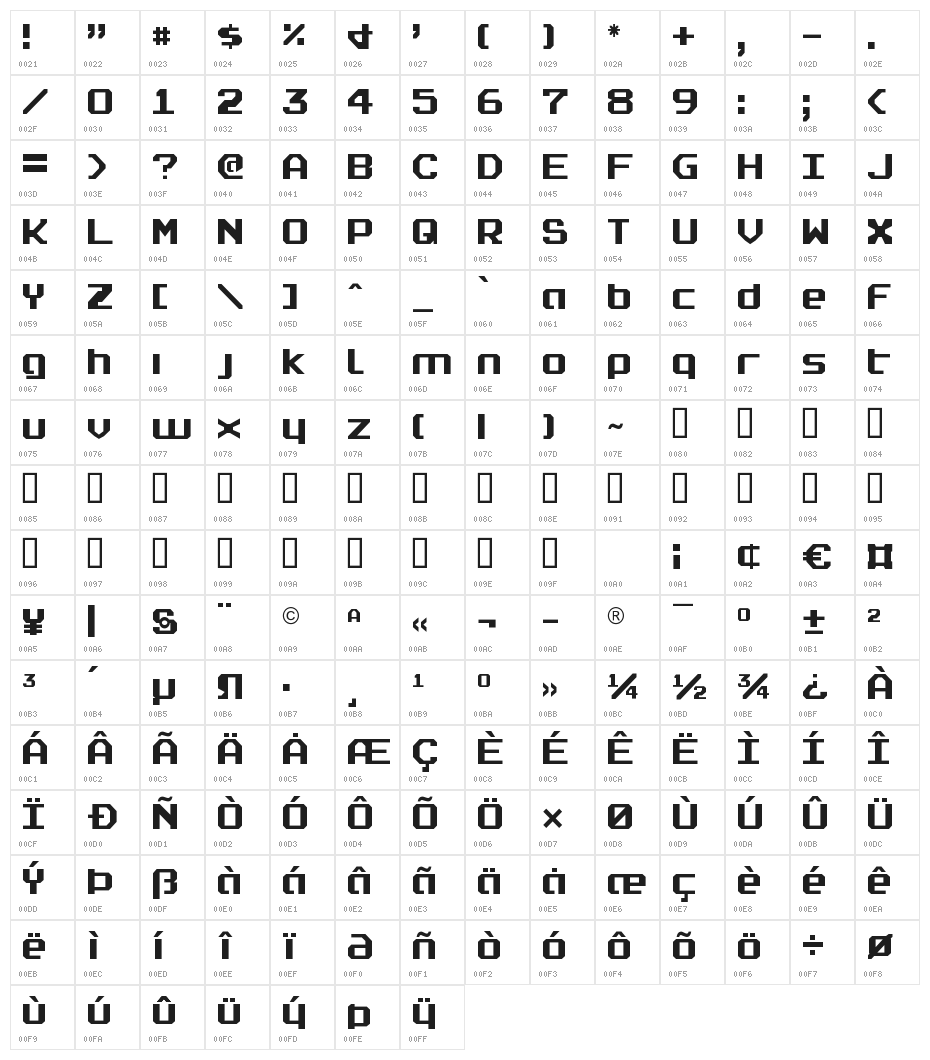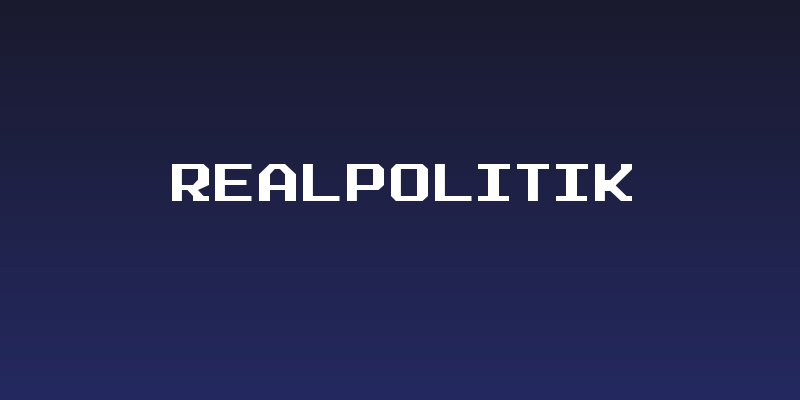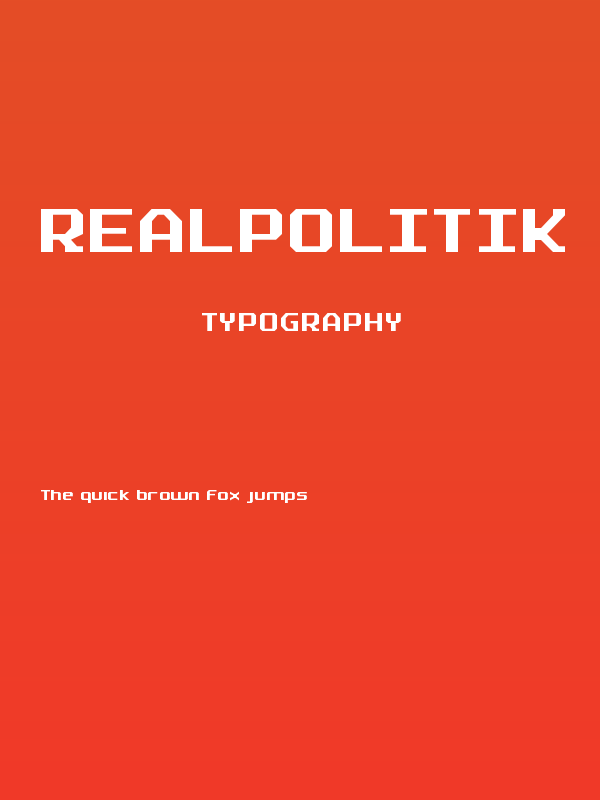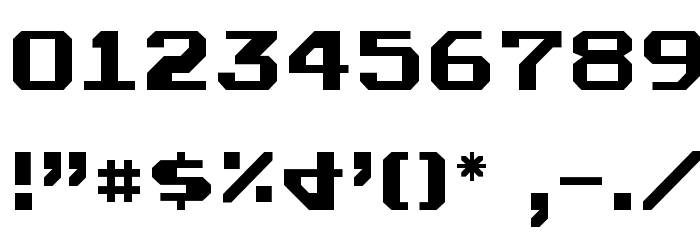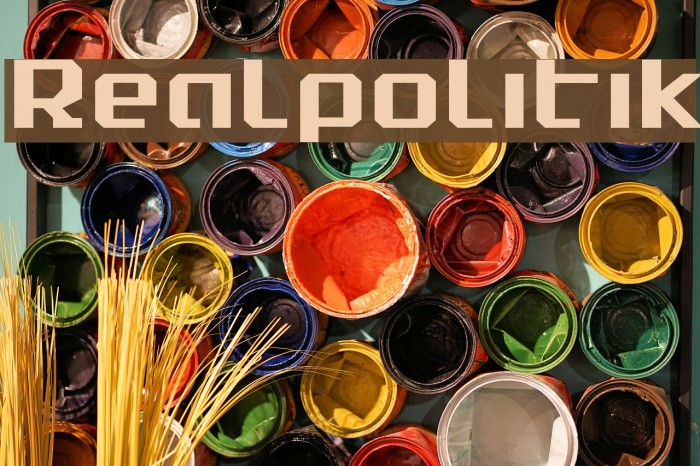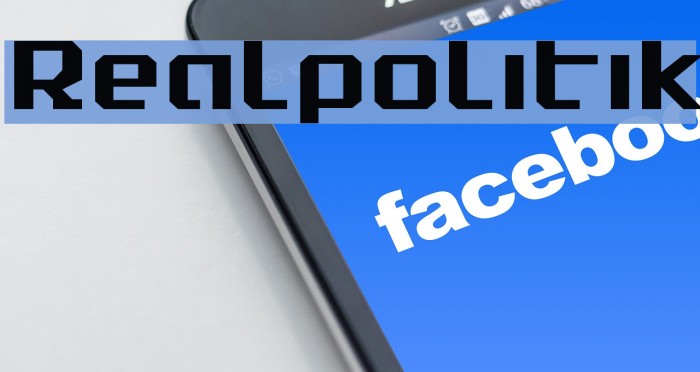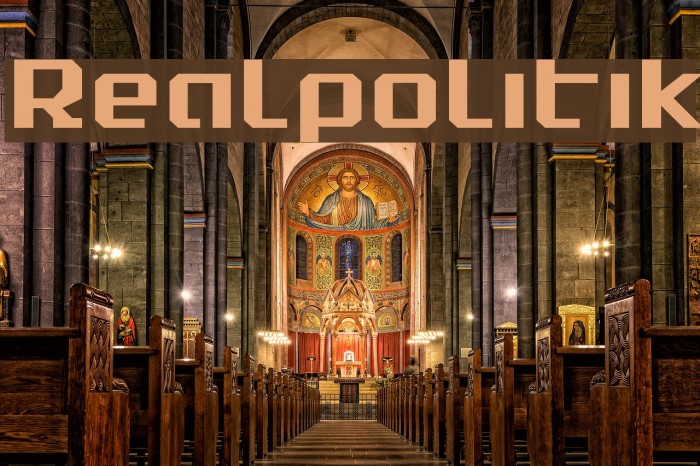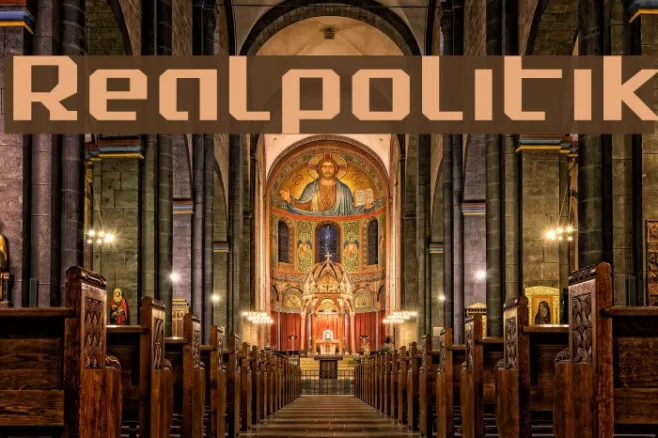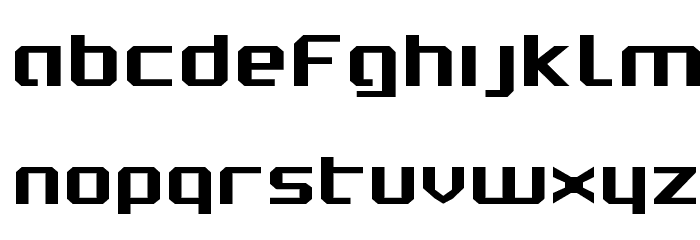
Realpolitik Font
This font features a bold, geometric design with a modern and industrial feel. The characters are constructed with sharp angles and straight lines, creating a sense of strength and stability. The uppercase letters are particularly striking, with a blocky appearance that commands attention. The lowercase letters maintain the same angular style, ensuring consistency throughout the typeface. Numbers and special characters are designed to match the overall aesthetic, making this font versatile for various applications. The uniformity in stroke width across all characters contributes to a cohesive look, while the moderate spacing between characters ensures readability.
| Proposed Projects | Ideal for branding, posters, headlines, and signage where a strong, modern presence is desired. |